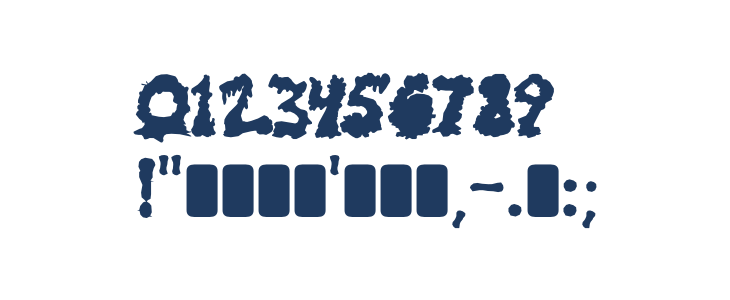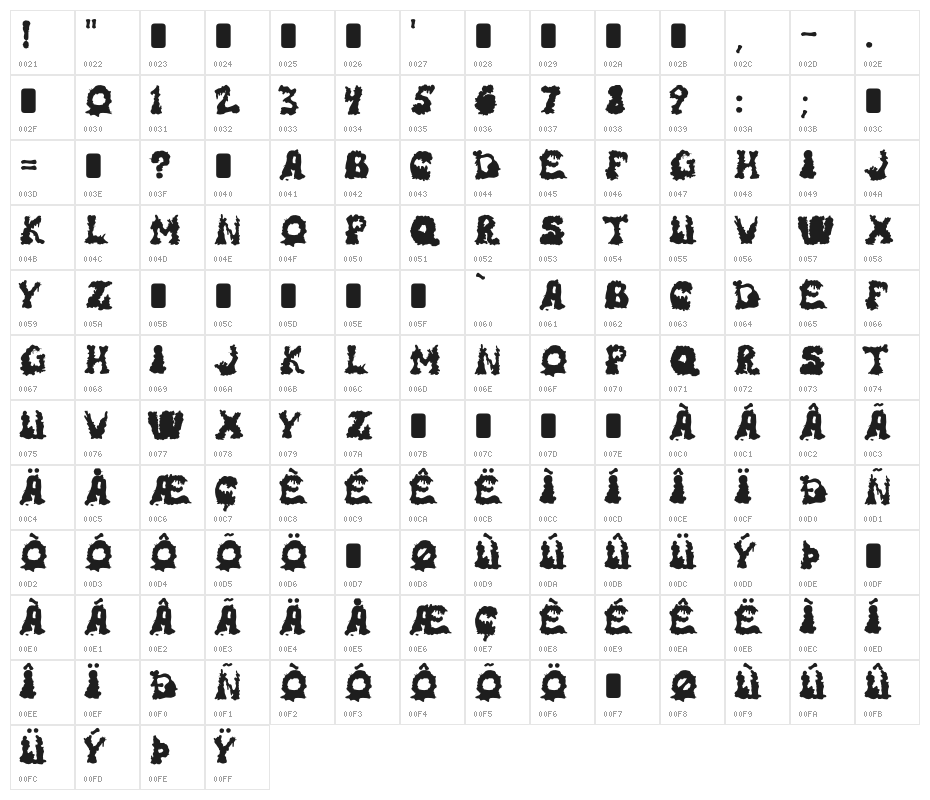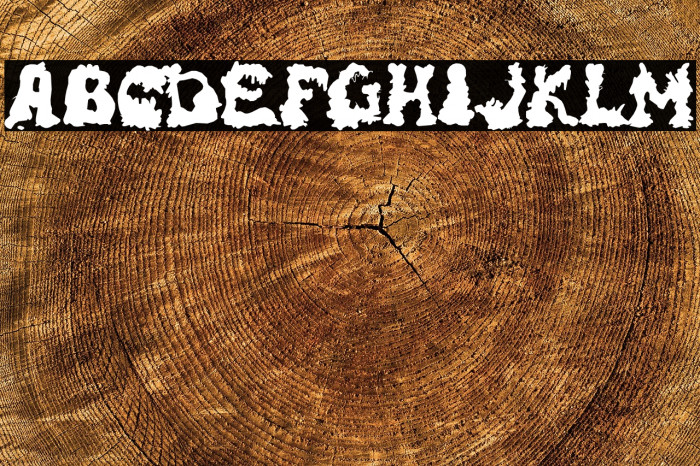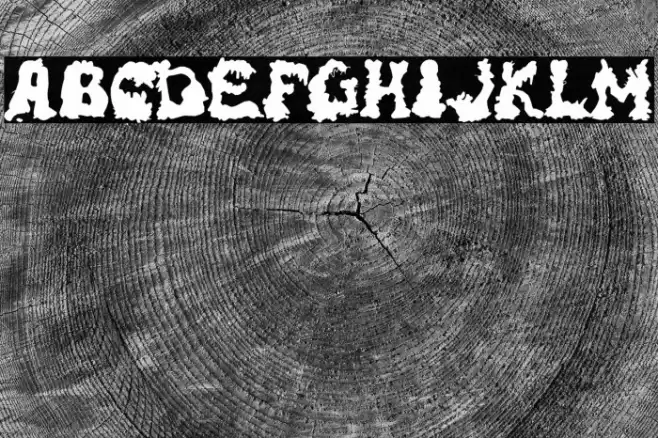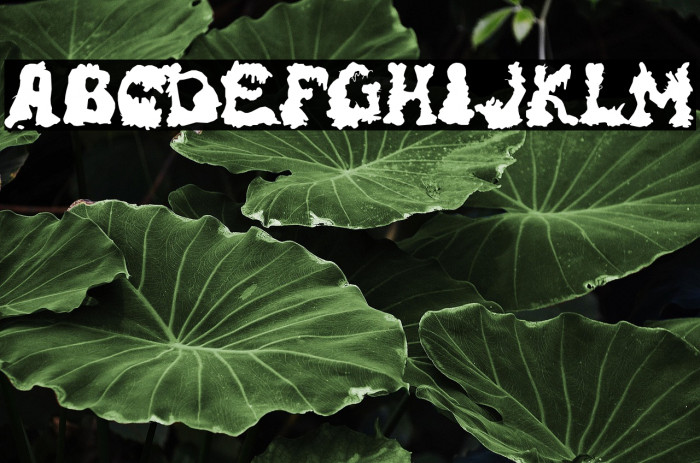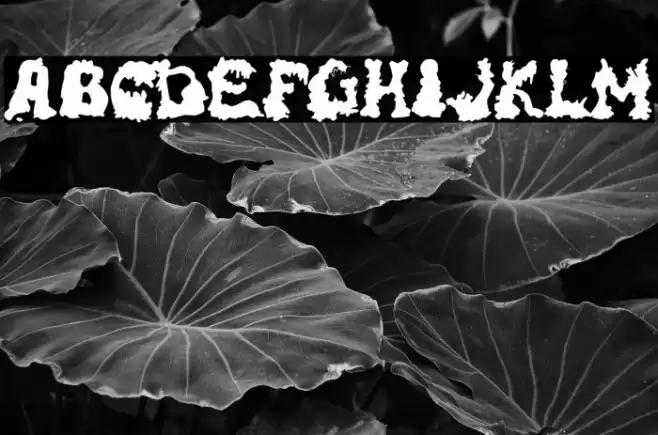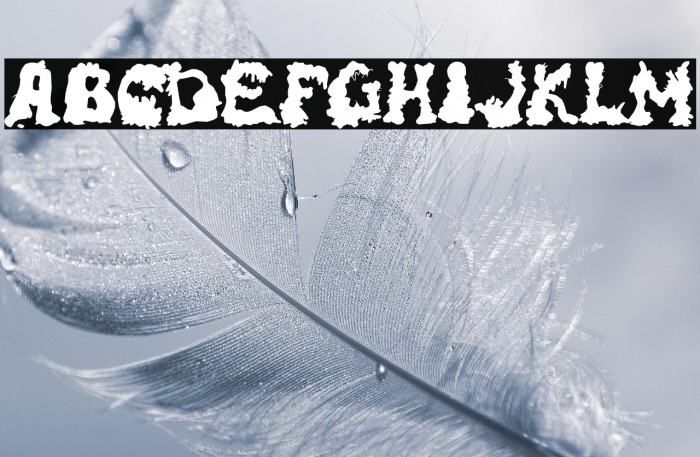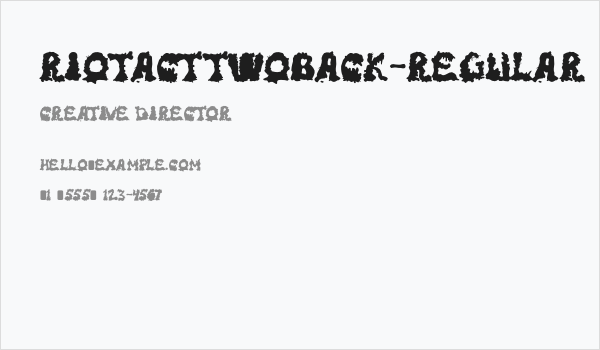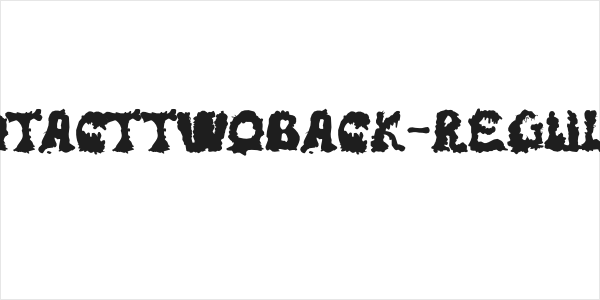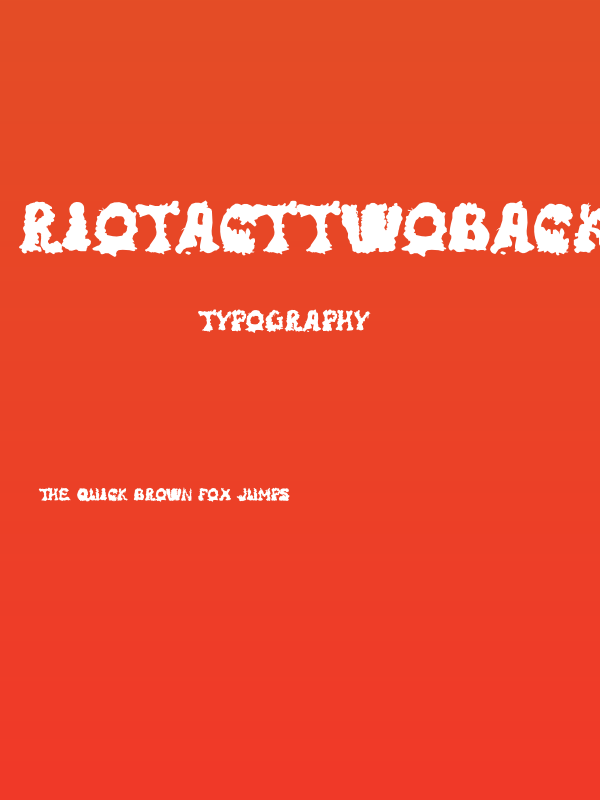
RiotActTwoBack-Regular Font
RiotActTwoBack-Regular Description
This font features a bold and chaotic design, with each character appearing as if it has been splattered with ink or paint. The edges are irregular and jagged, giving it a distressed and grungy appearance. The uppercase and lowercase letters maintain this rugged style, making it ideal for projects that require a raw and edgy look. The numbers and special characters follow the same aesthetic, ensuring consistency across all elements. This font is perfect for creating impactful headlines or artistic designs that need a touch of rebellion.
| Overall Style | Grunge, Edgy |
| Use Case | Headlines, Logos, Artistic designs |
| Proposed Projects | Ideal for album covers, posters, street art designs, or any project needing a rebellious, edgy vibe. |